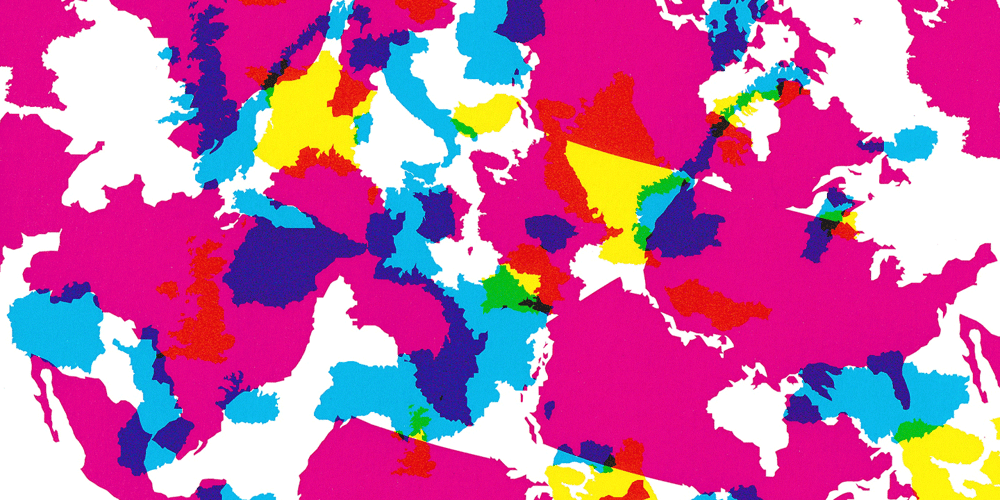
Patriot Kit Font Family was designed by Lars Harmsen, Boris Kahl and published by Volcano Type. Patriot Kit contains 6 styles and family package options. Make your own camouflage-styled pattern. The patriot kit is a complete family containing 6 fonts to make your very own camouflage patterns.